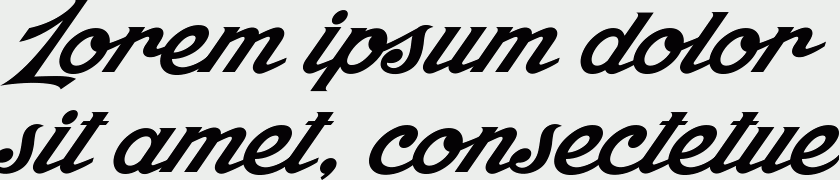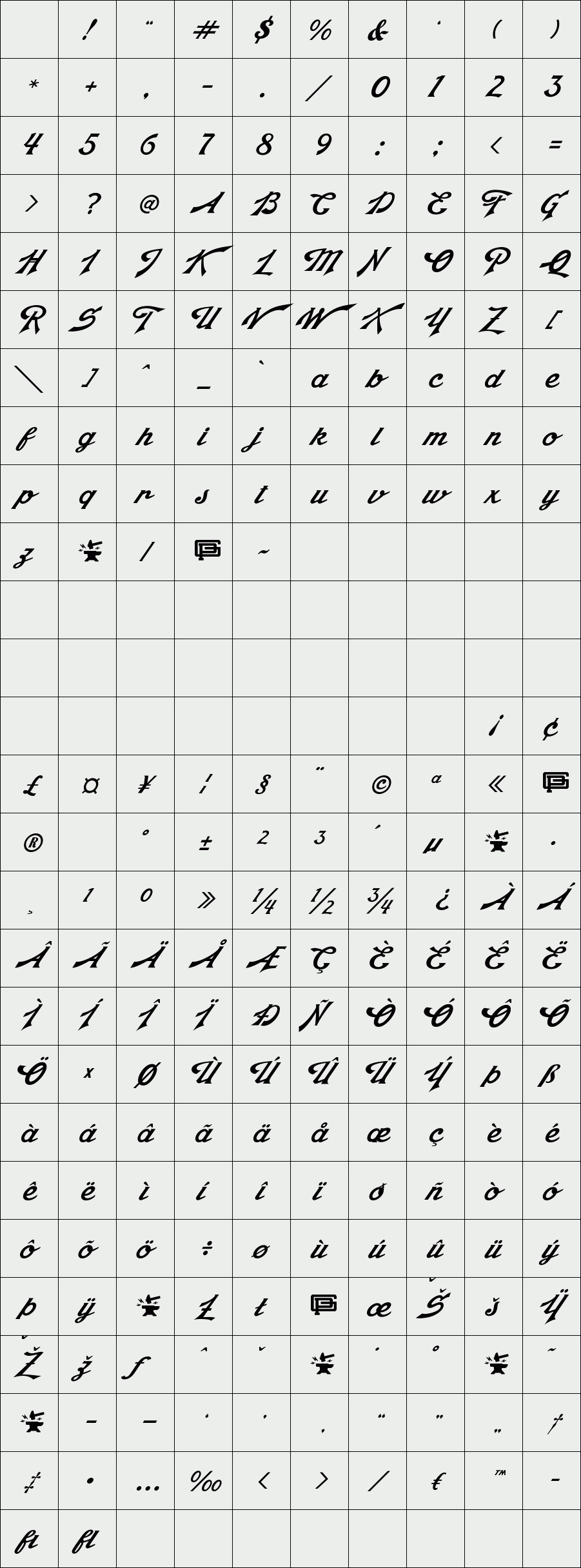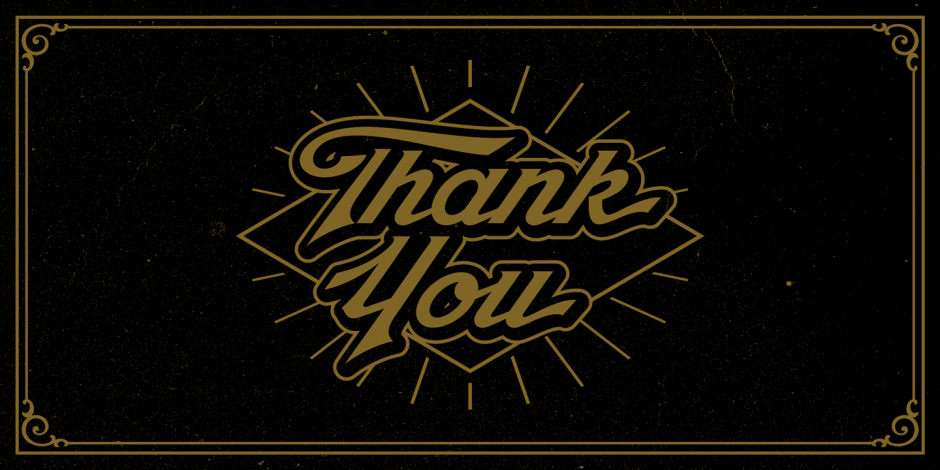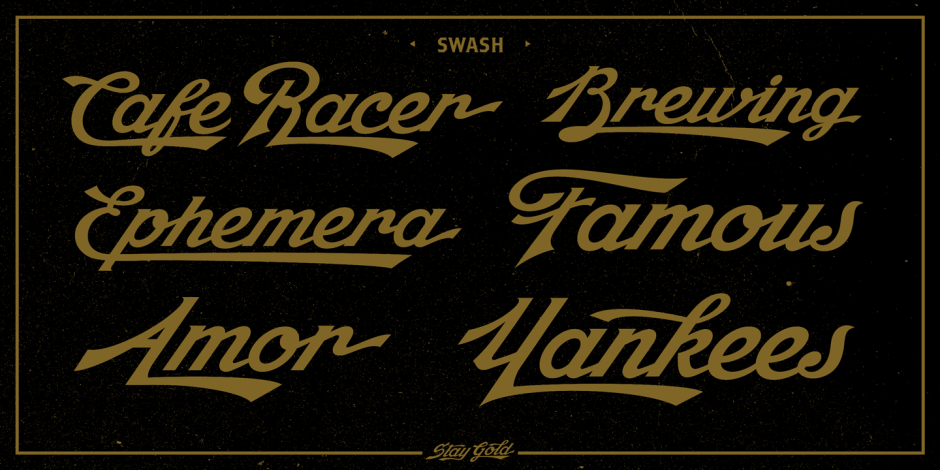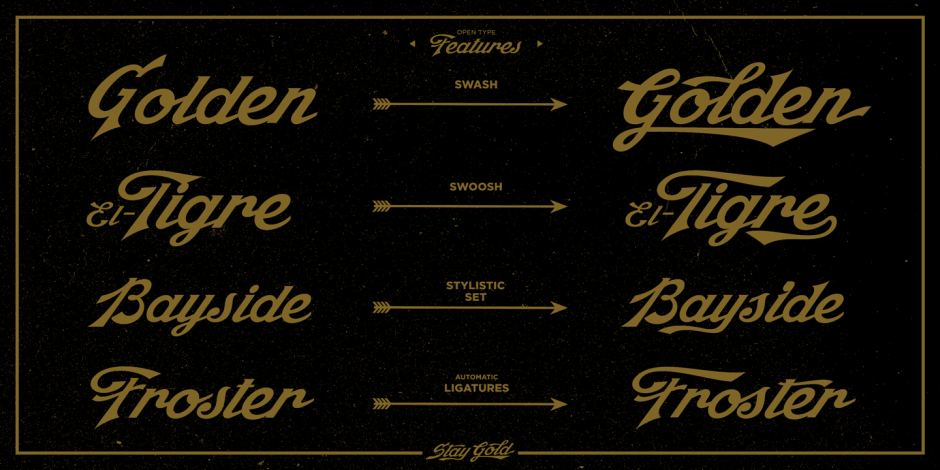
Stay Gold Script is a highly usable, powerful typeface. Perfect for everything from street wear brand to wedding invitations, sports team logos to band logos. Use it however you see fit. Just one thing - it’s not designed for all-caps settings.